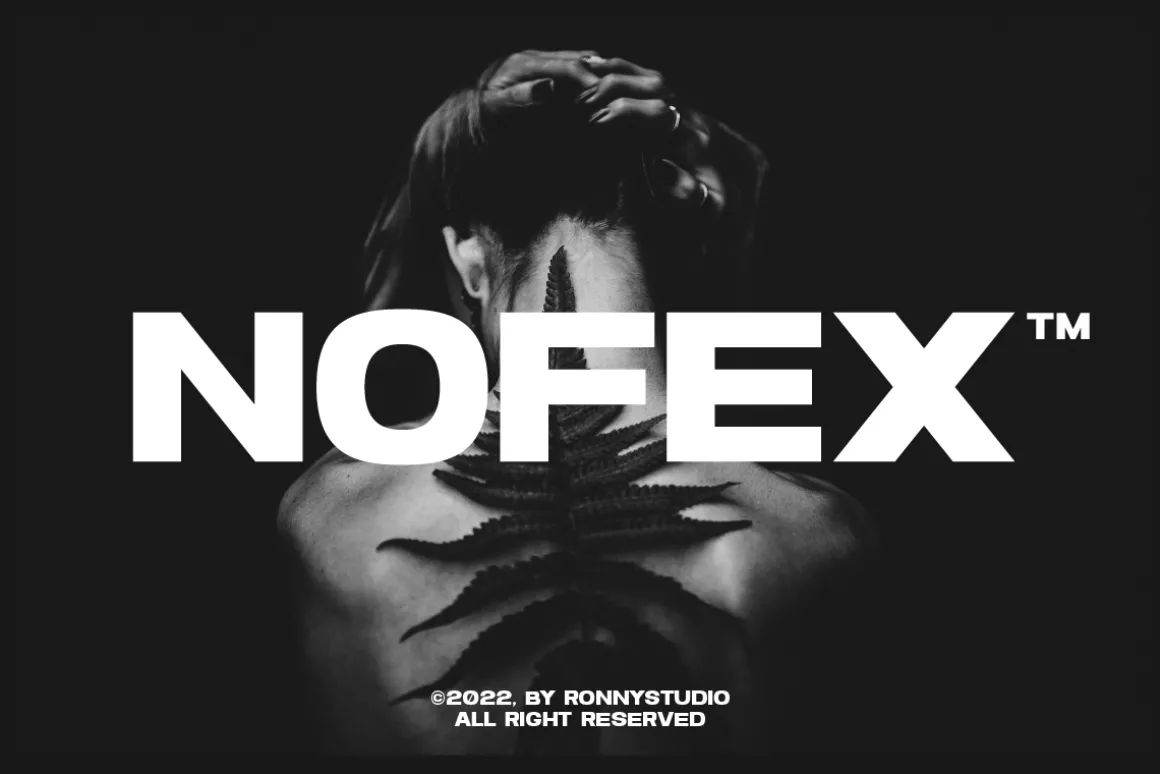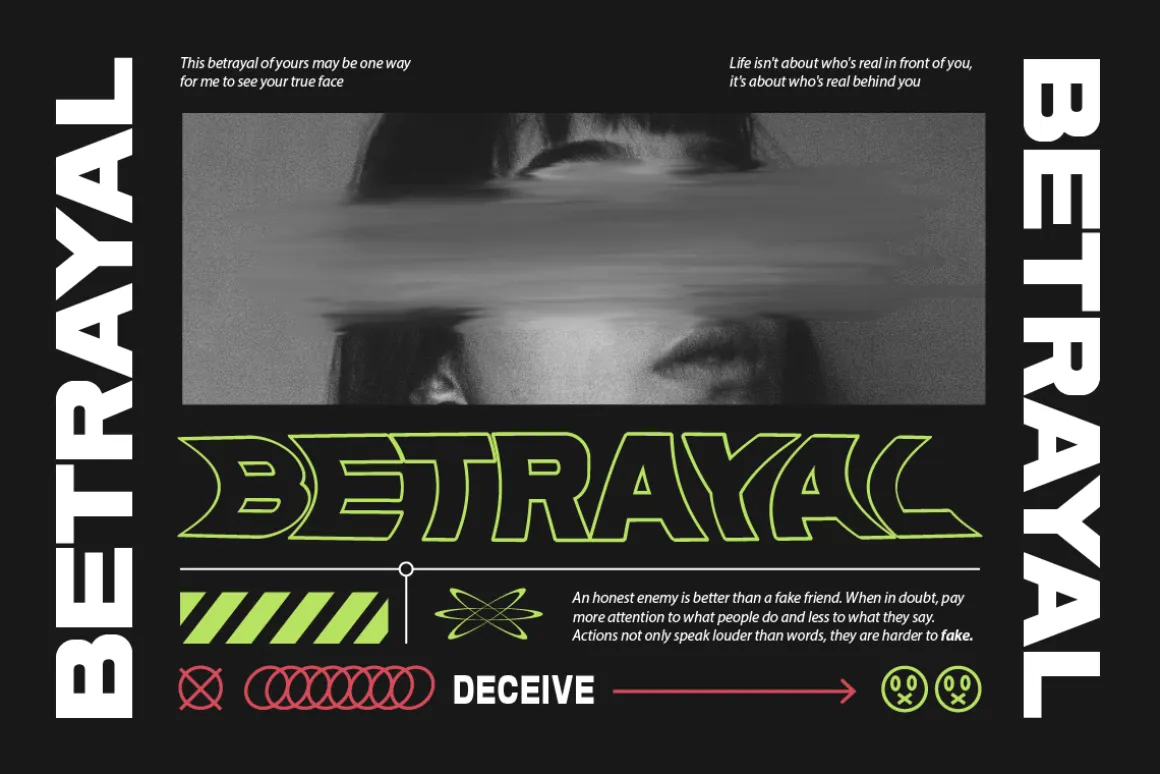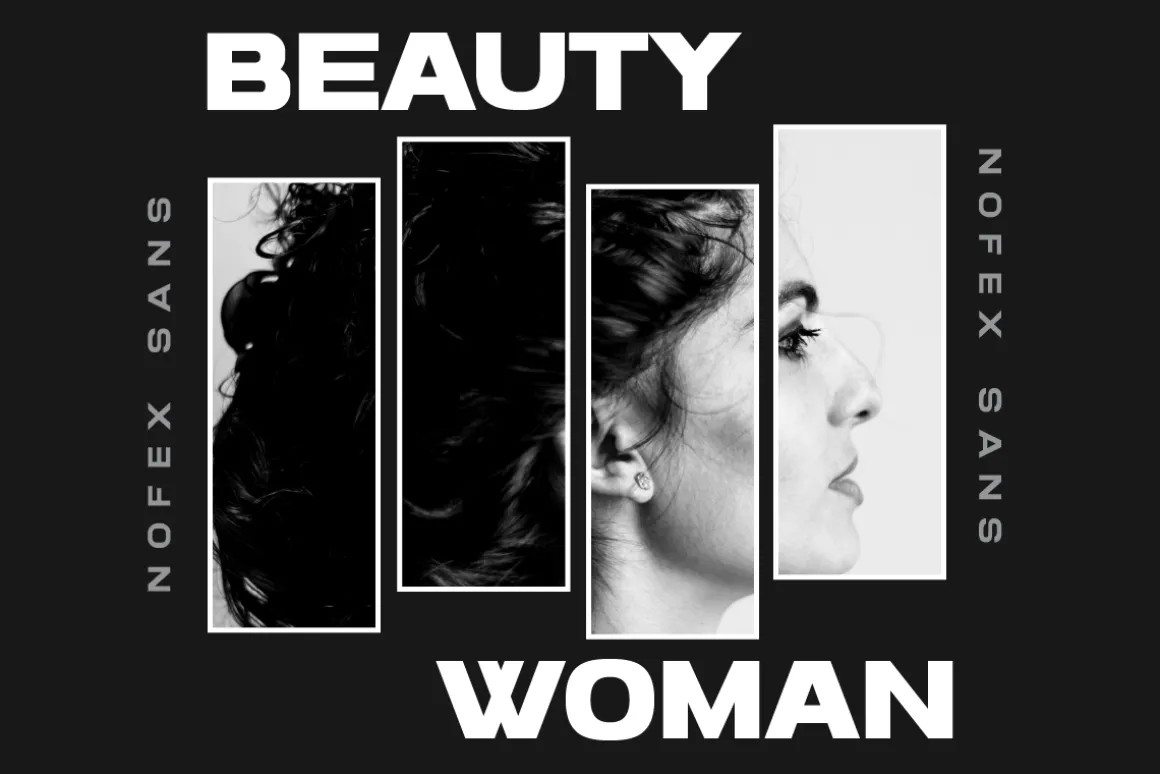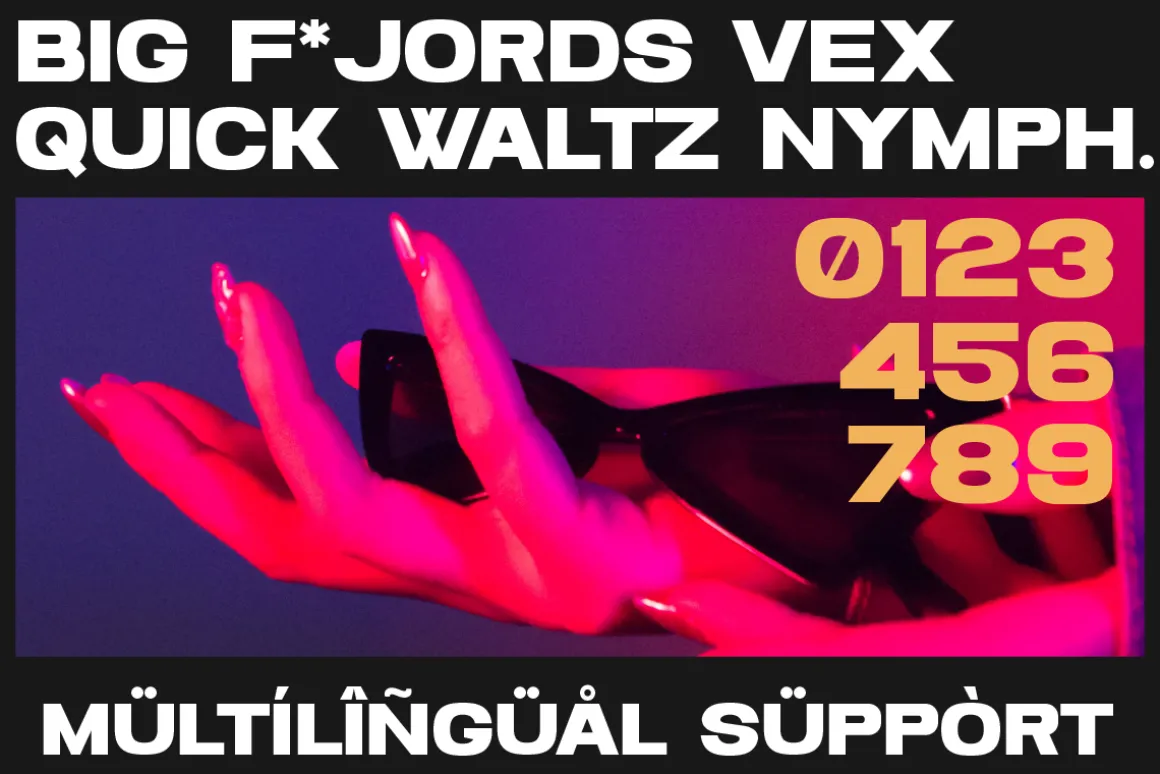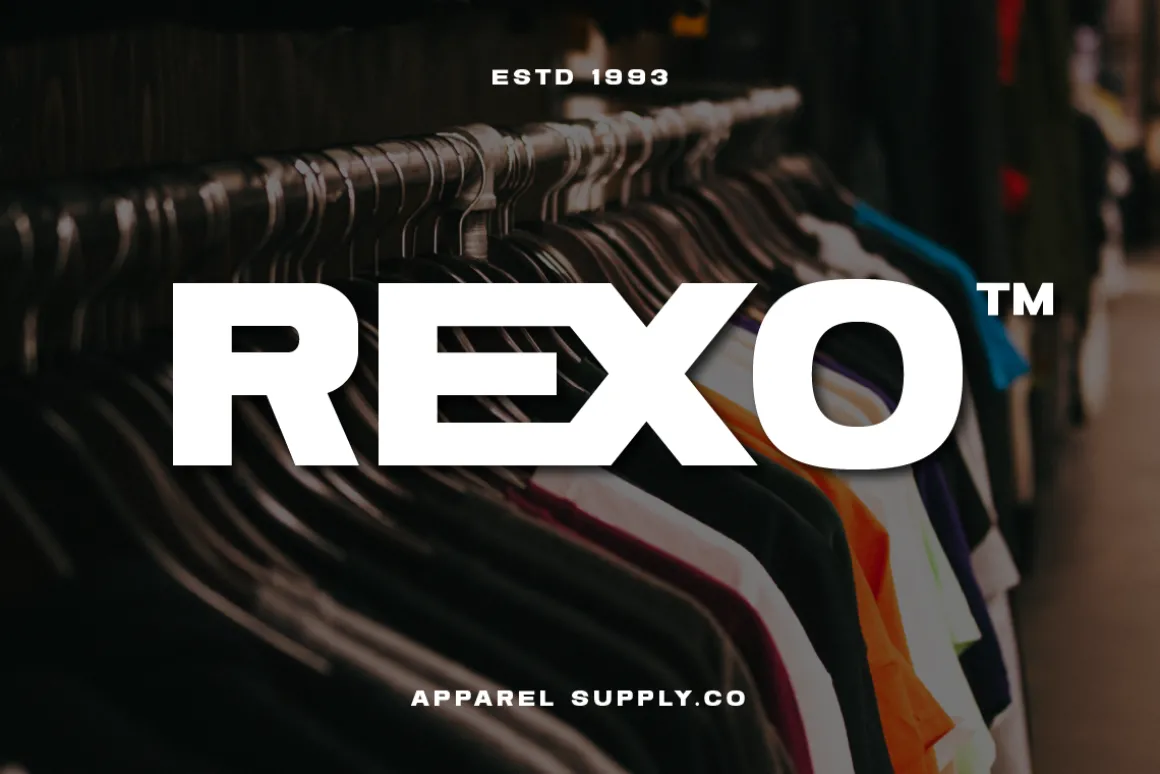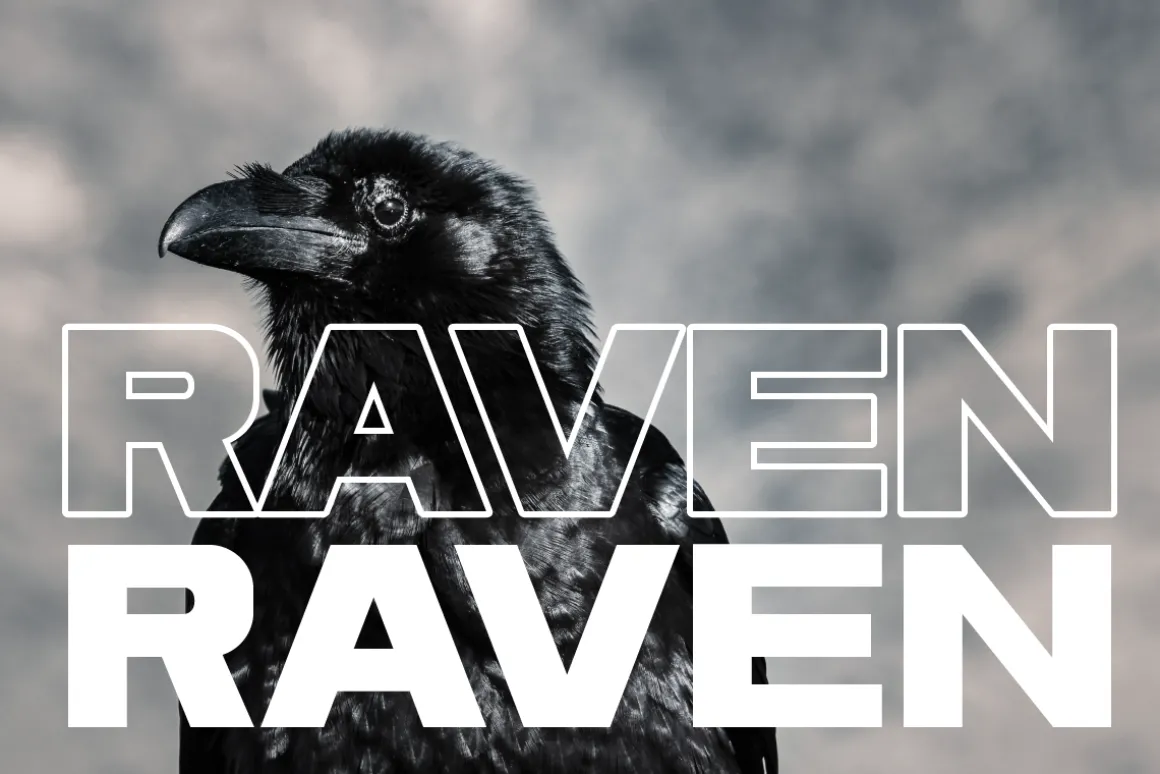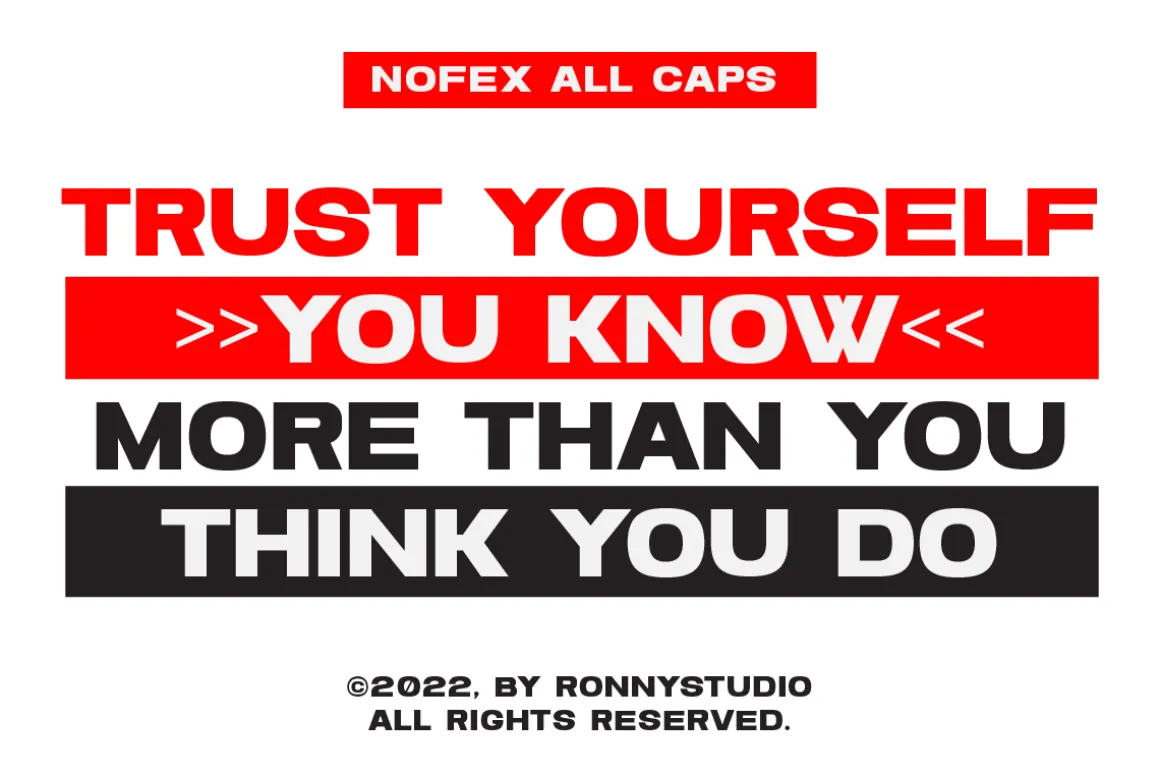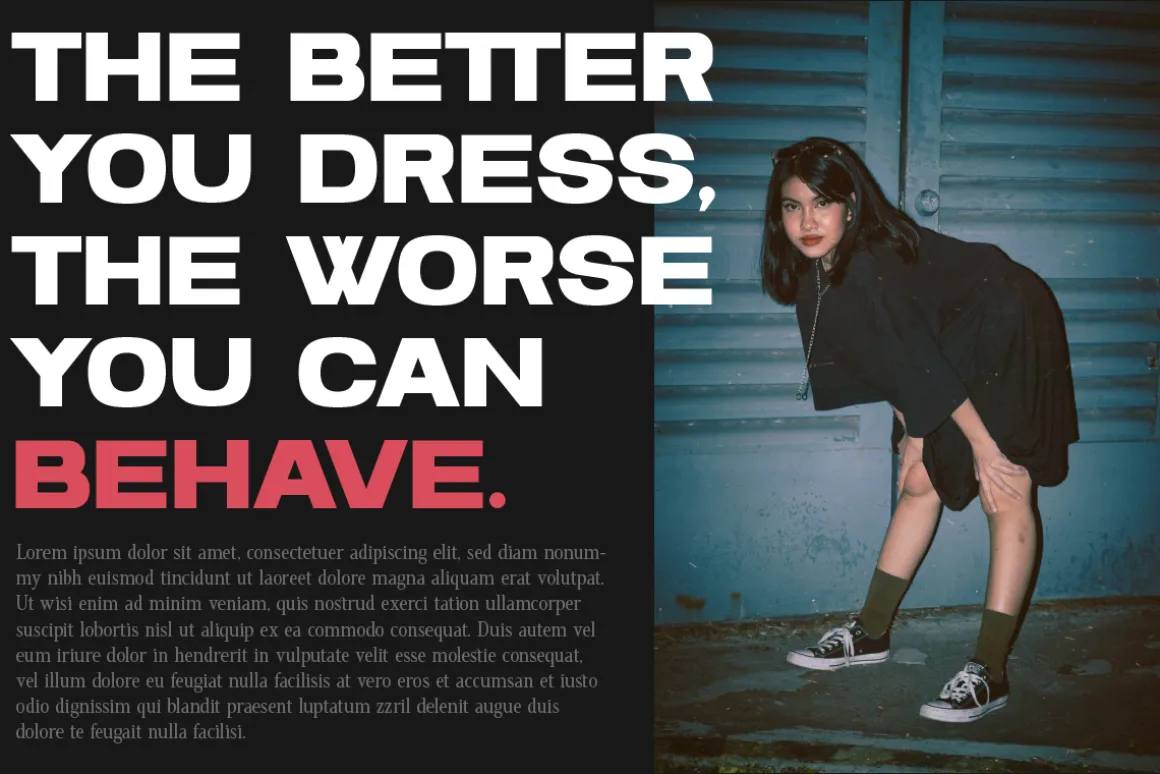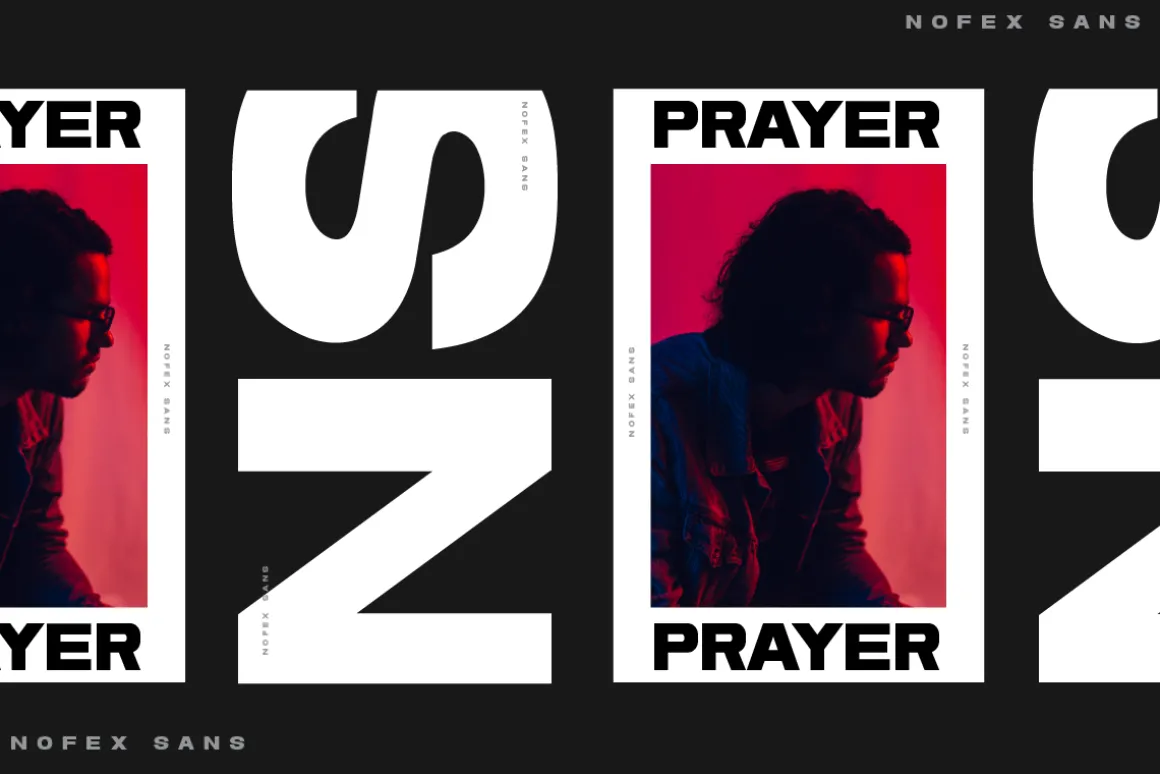
Introducing Nofex – A Bold and Expanded Sans Serif Font
Nofex is a bold, expanded sans serif typeface designed to make a statement. Perfect for headlines, posters, logos, and branding projects, Nofex combines modern minimalism with strong geometric shapes. Whether you’re working on a bold advertisement, dynamic social media post, or a standout packaging design, Nofex will elevate your typography game.
Key Features:
- Bold and Expanded – Designed for maximum impact and readability.
- Versatile Design – Perfect for a wide range of creative projects including logos, posters, banners, social media, and more.
- Uppercase & Lowercase – Full character set with multilingual support.
- Modern Aesthetic – Geometric sans serif style for a clean and contemporary look.
Perfect For:
- Bold advertising and marketing materials
- Branding and visual identity projects
- Fashion and lifestyle campaigns
- Editorial headlines and magazine layouts
- Product packaging and labels
- Social media graphics and digital ads
Elevate your design projects with Nofex and make your typography stand out.